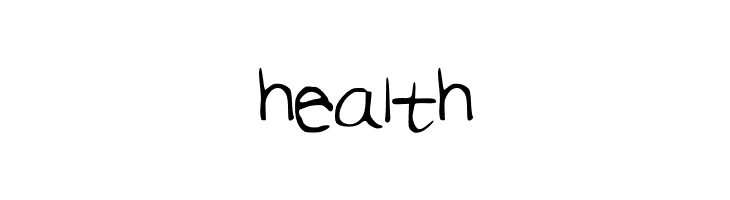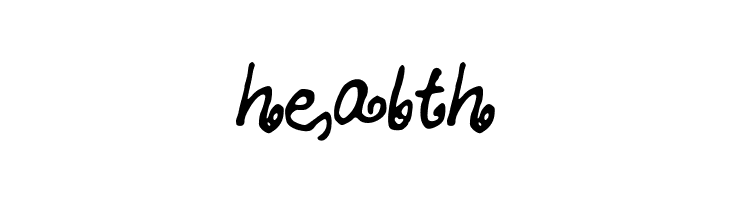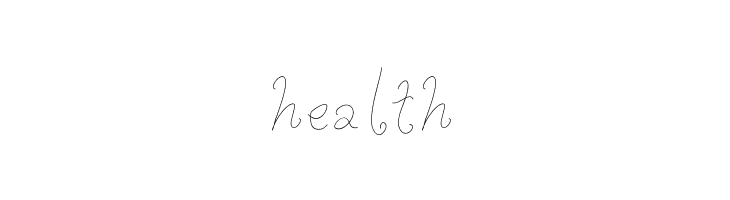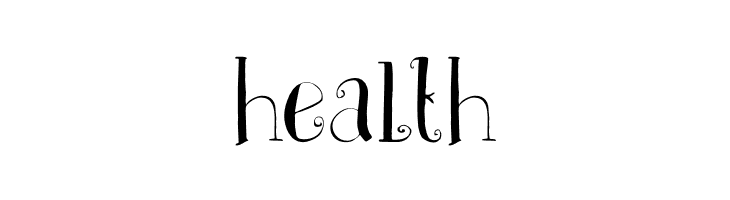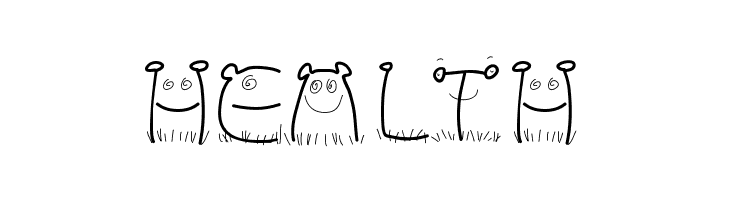
A whimsical, decorative font with playful swirls and elegant flourishes.
A whimsical, decorative font with charming swirls and curls.
A playful, handwritten font with a whimsical and casual style.
A playful, curly font with noodle-like strokes and a whimsical appearance.
A playful, bold outline font with a hand-drawn, whimsical style.
A playful, rounded font with whimsical paw print accents.
A playful, decorative font with whimsical dots and curls.
A playful, cartoon-like font with characters featuring eyes and ears, perfect for children's designs.